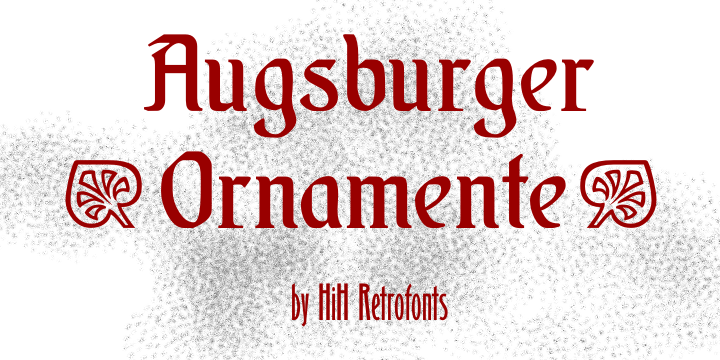
This is a free font made up of seven ornaments designed for our font Augsburger Initialen plus a sample of three different commonly-used initial letters from that font (A, I and T). Most of the ornaments are rotated in different positions for convenience, making a total of 25 glyphs, not including the initials and our logo.
The larger ornaments are best at 28 points or larger. In order to avoid be too heavy and clunky at display sizes, the lines have to be too thin to display properly at 24 points or less. More…
The ornaments at positions G, H, J, K, M & O are only provided in left & right positions (i.e. with a horizontal orientation) because of the high aspect ratio. If you desire to use these in a vertical orientation, it is suggestion you use a drawing program to give you the positioning control you will need. Otherwise, you can use your word processing program.
Excellent for making small signs for the church bulletin board.